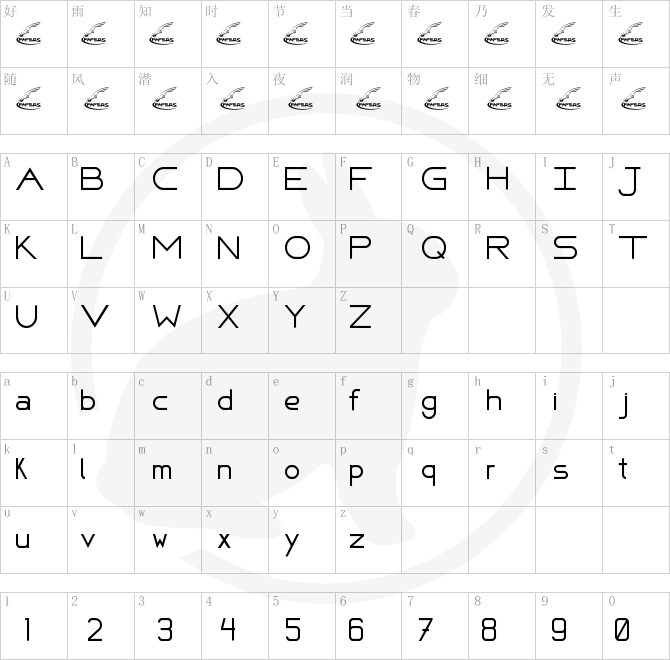
- Font Name:FAFERS Technical Font
FAFERS-Technical-Font.ttf is a very beautiful artistic font, FAFERS-Technical-Font.ttf is widely used in the design and printing of various books and pictures,FAFERS-Technical-Font.ttf has a strong visual impact,FAFERS-Technical-Font.ttf is a commonly used font in newspapers, magazines and books, and is used in posters, e-commerce Poster design, store design, logo design, font design and other fields.FAFERS-Technical-Font.